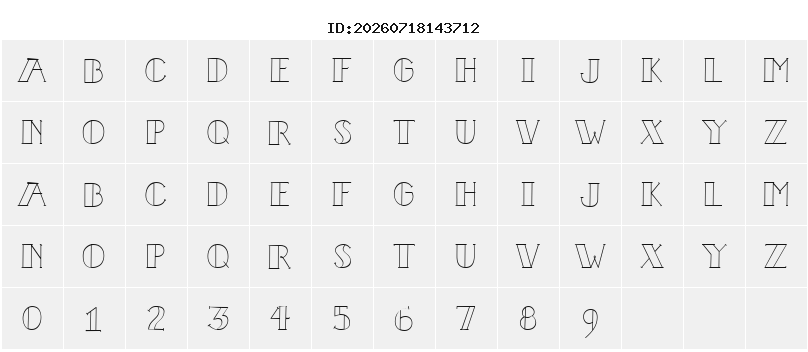
• Font Name: CK Fill In
• Full Font Name: CK Fill In
About CK Fill In.ttf
CK Fill In.ttf is a modern, elegant sans-serif font designed for ultimate readability and visual harmony. Perfect for branding, headlines, web design, and print materials.